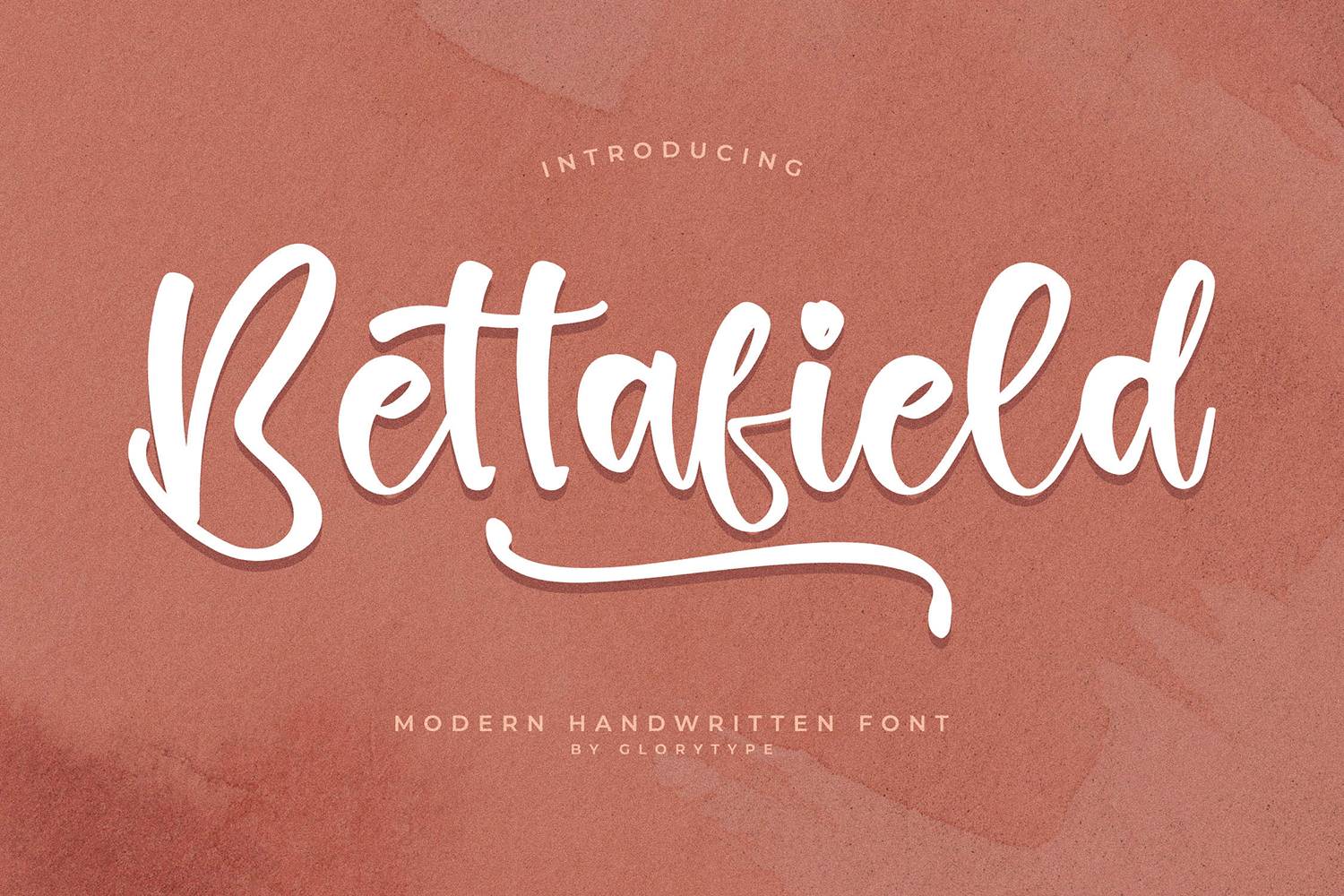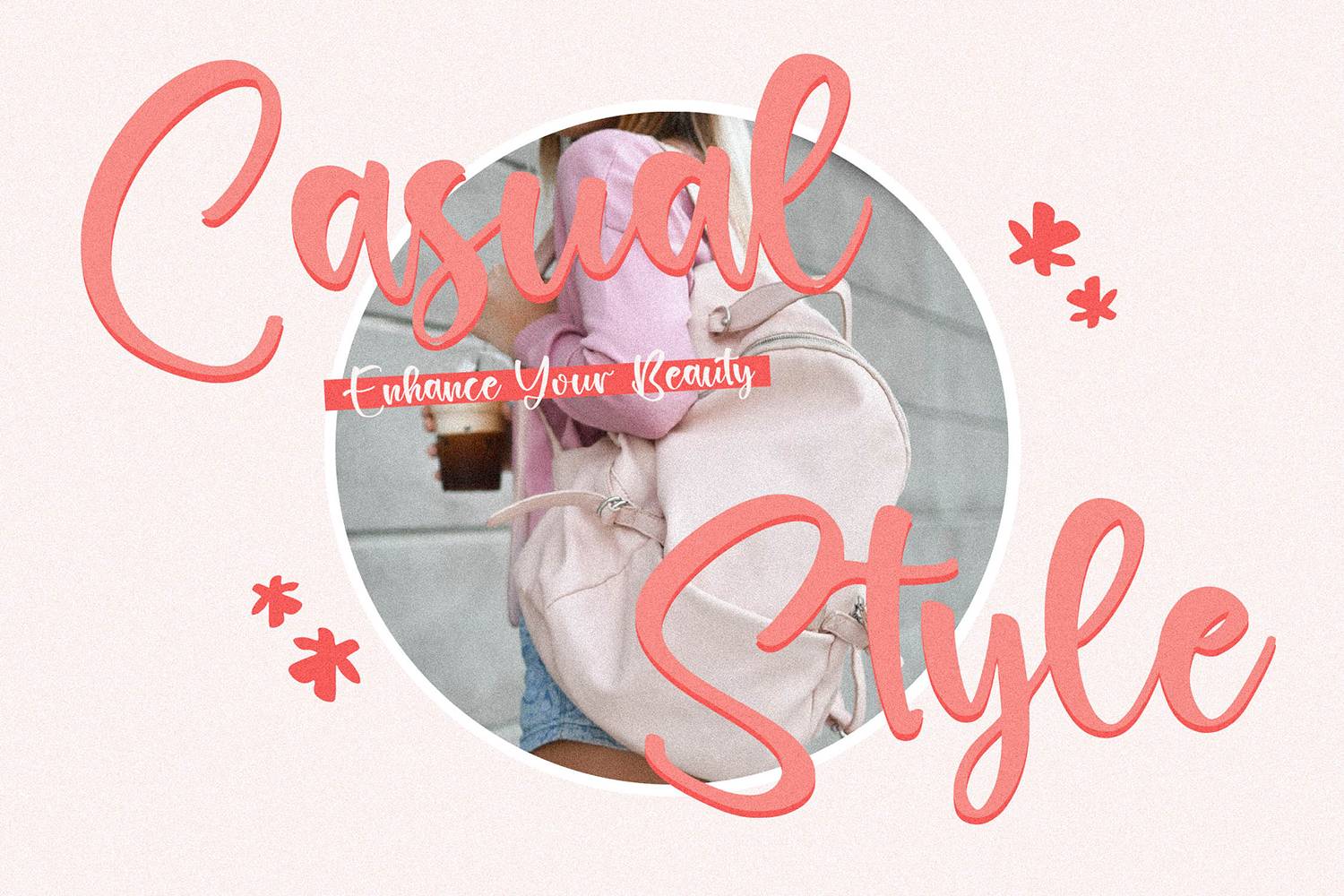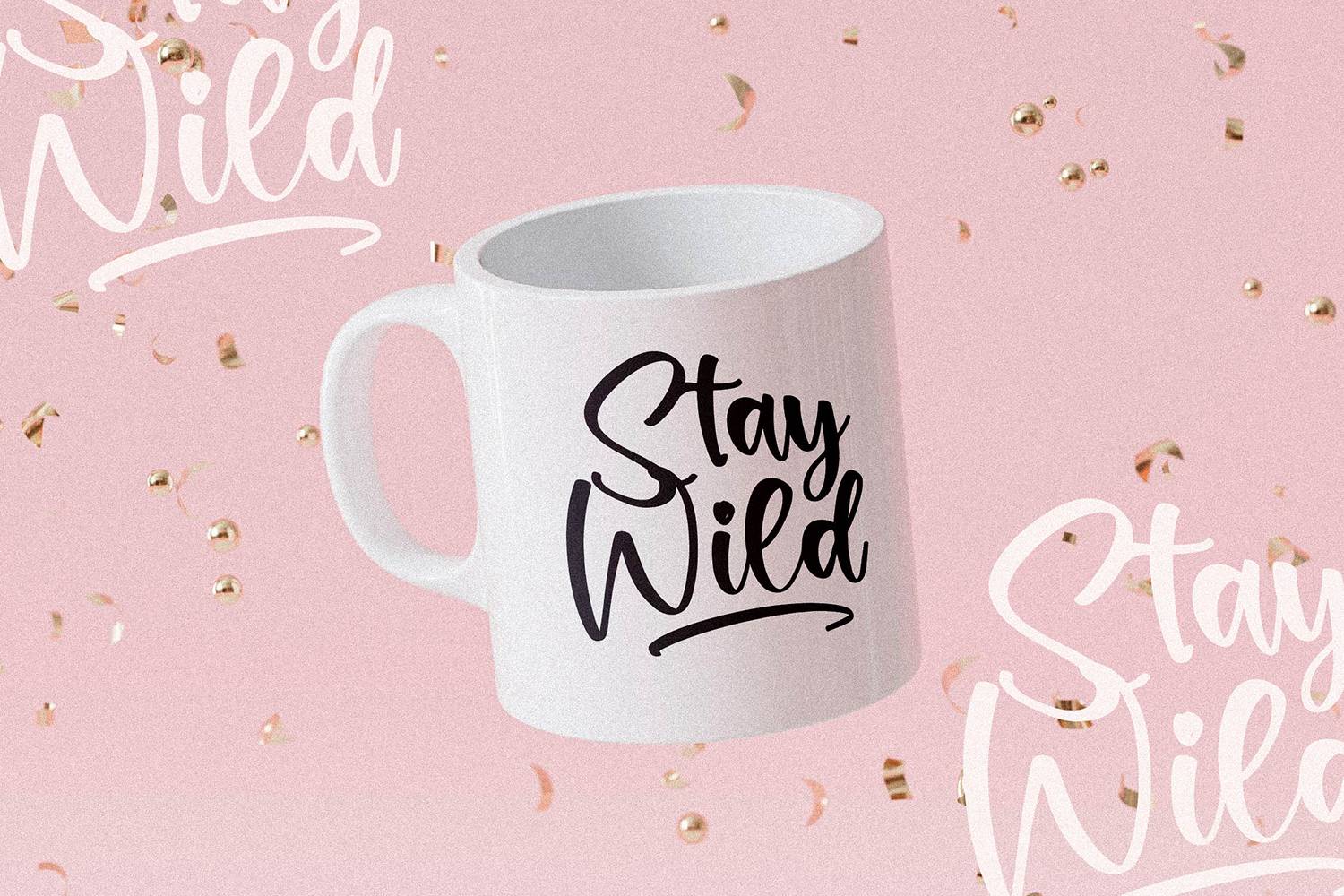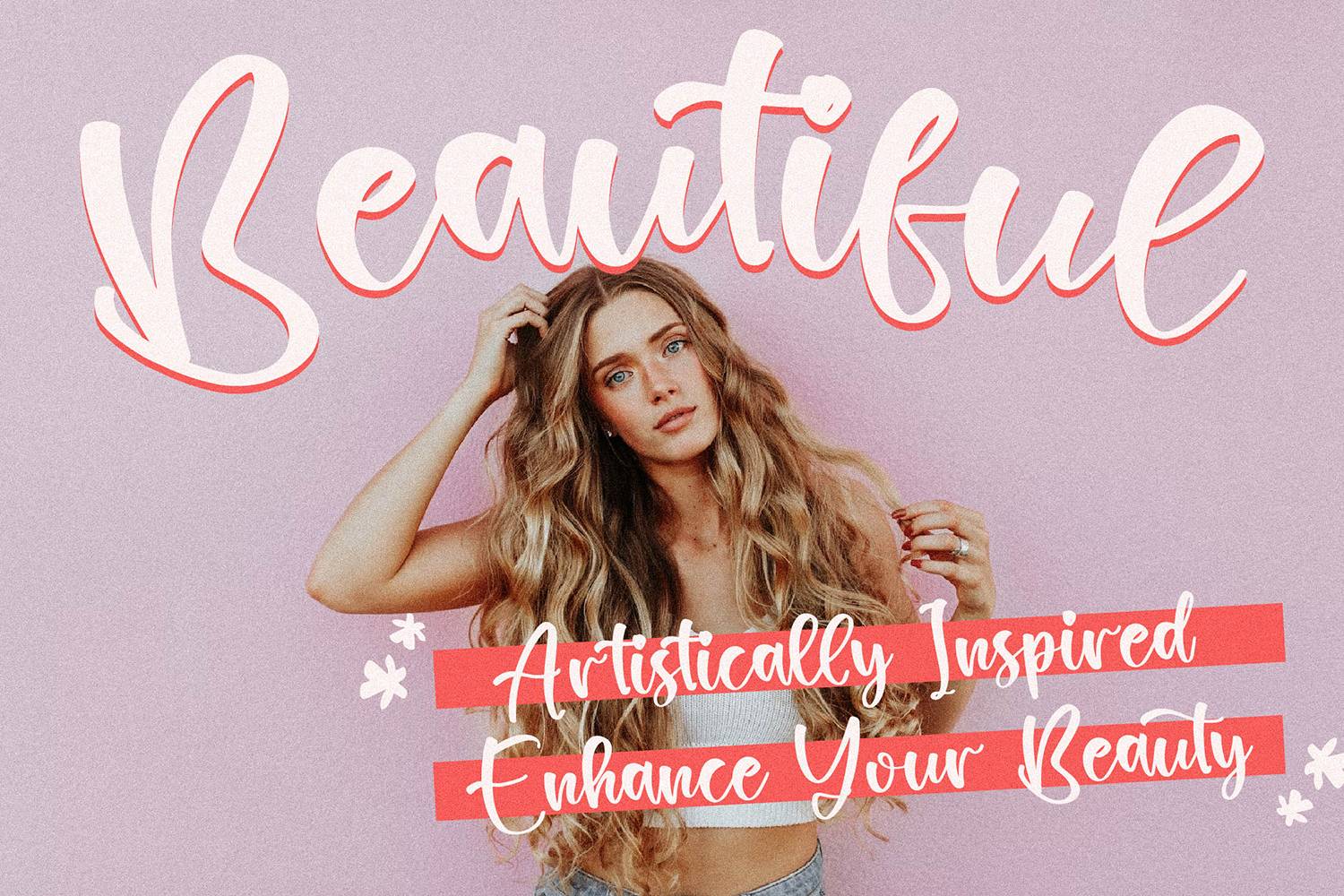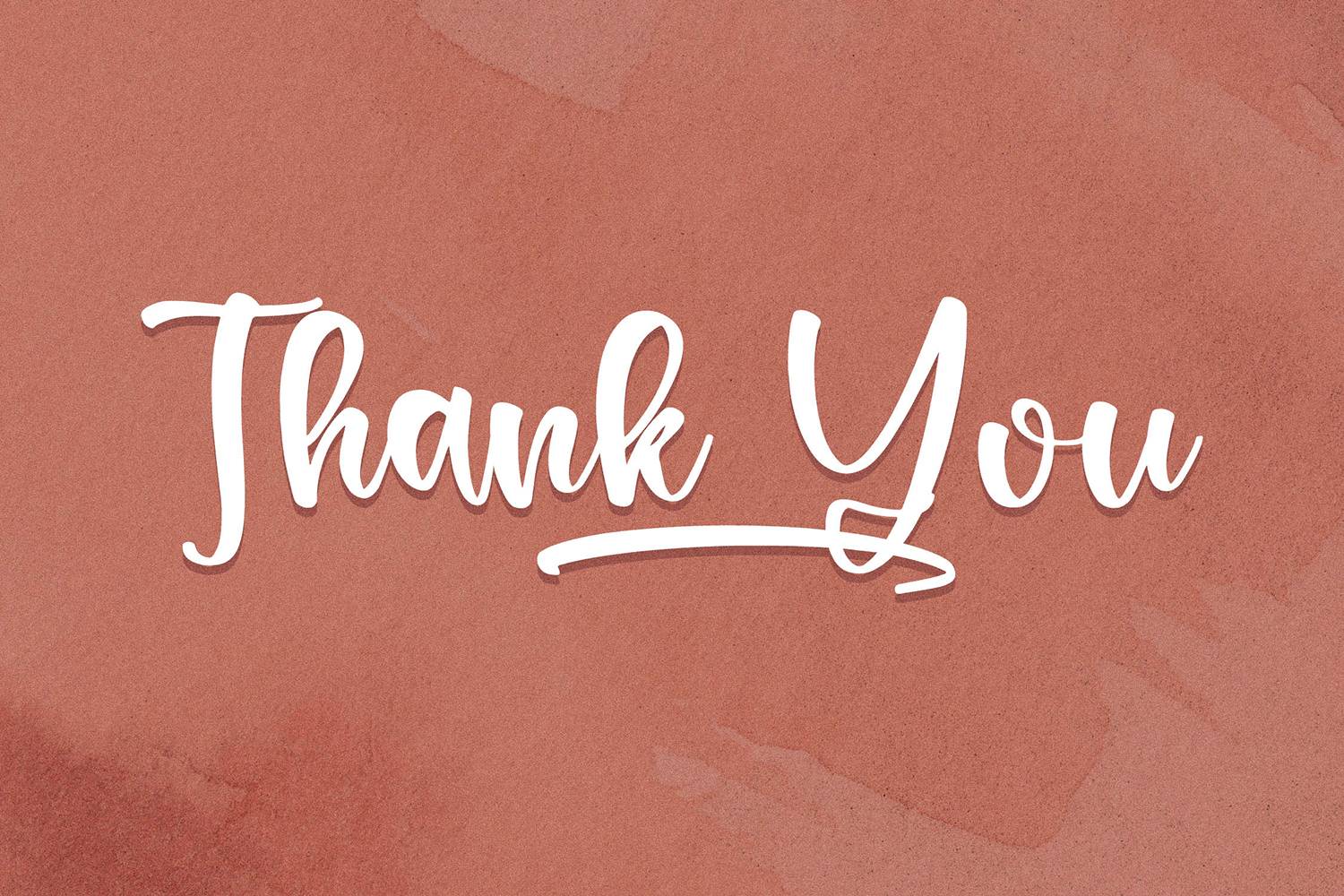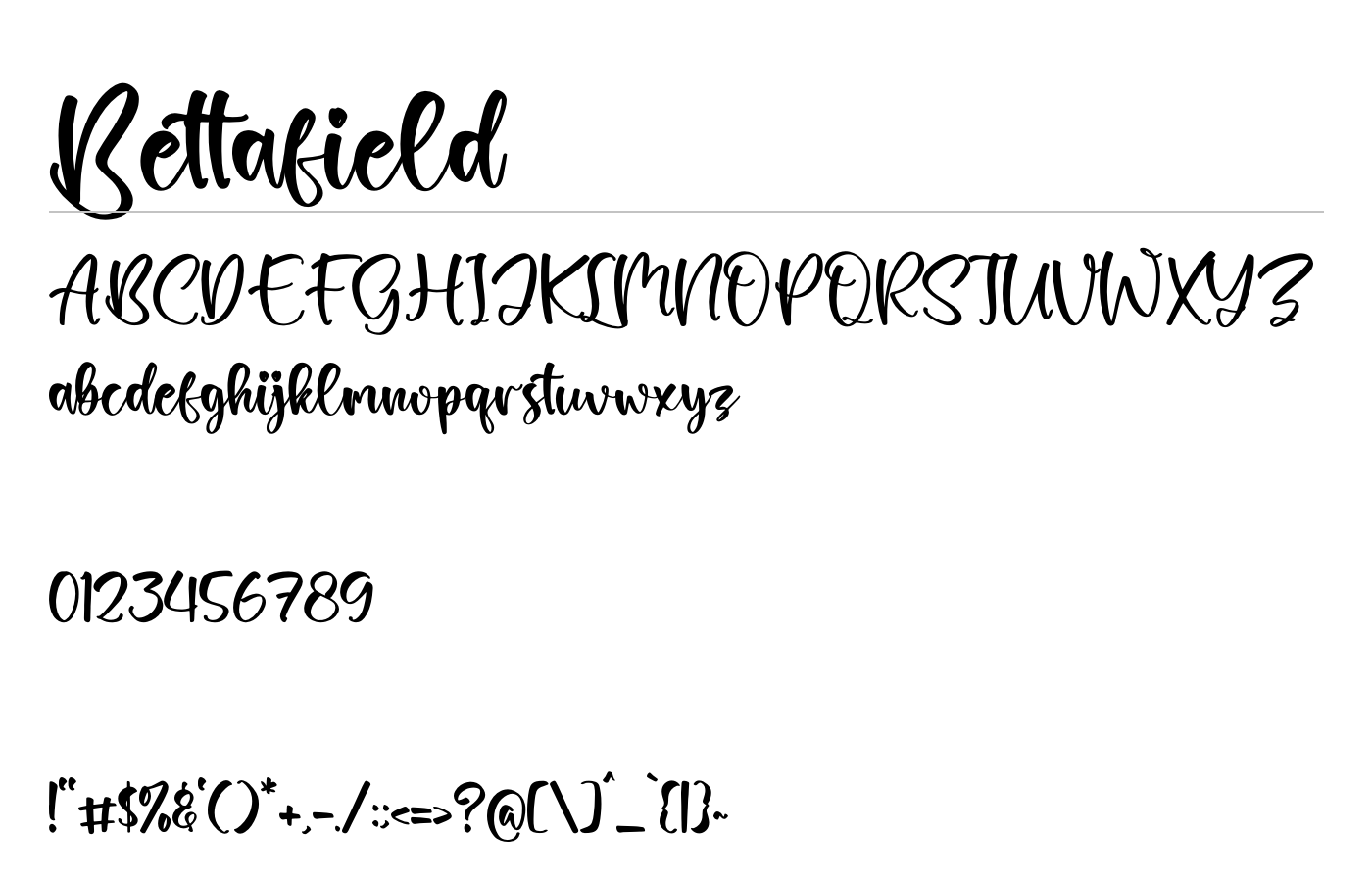
Bettafield is a lively and elegant script font with a modern handwritten style, featuring smooth, fluid strokes and a medium weight that balances readability with artistic flair. Its playful yet refined letterforms and slightly condensed width make it perfect for creative branding, invitations, and headlines where a personal, approachable touch is desired. This font brings warmth and charm to designs, making it ideal for fashion, lifestyle, and boutique projects seeking a friendly but sophisticated appearance.
Bettafield Font
About Bettafield Font